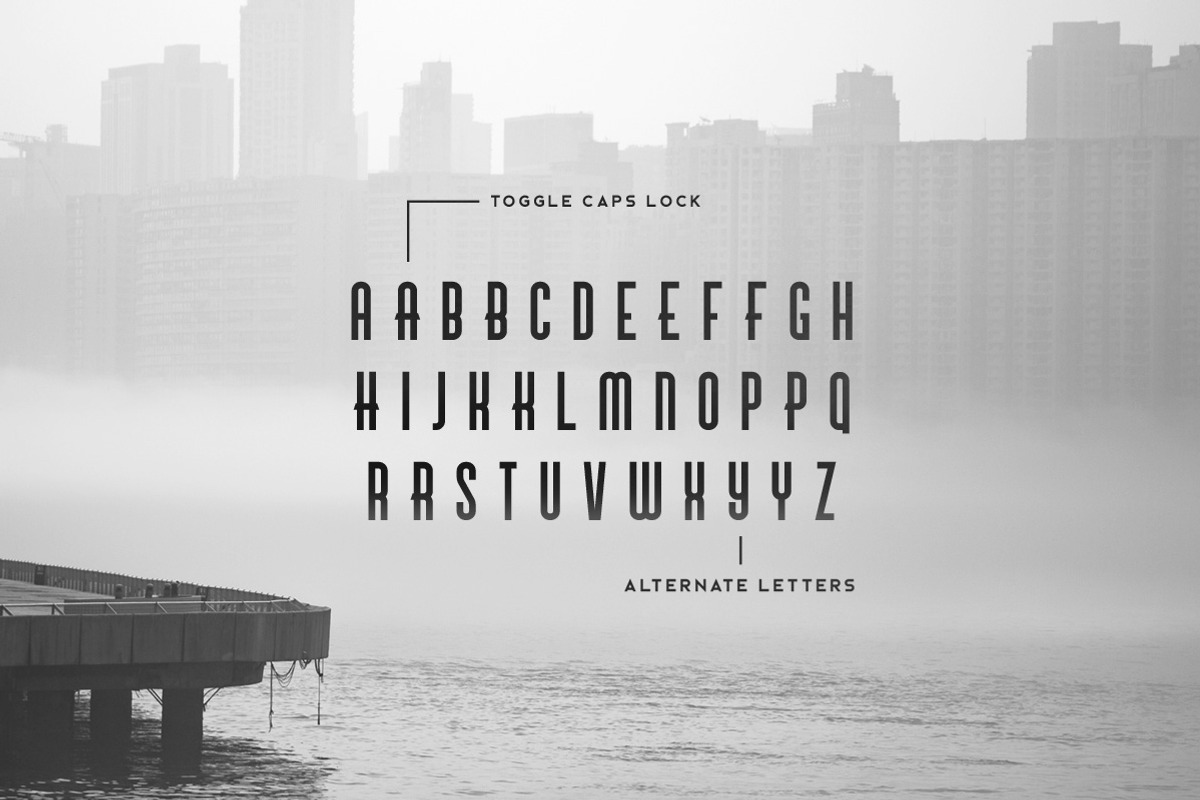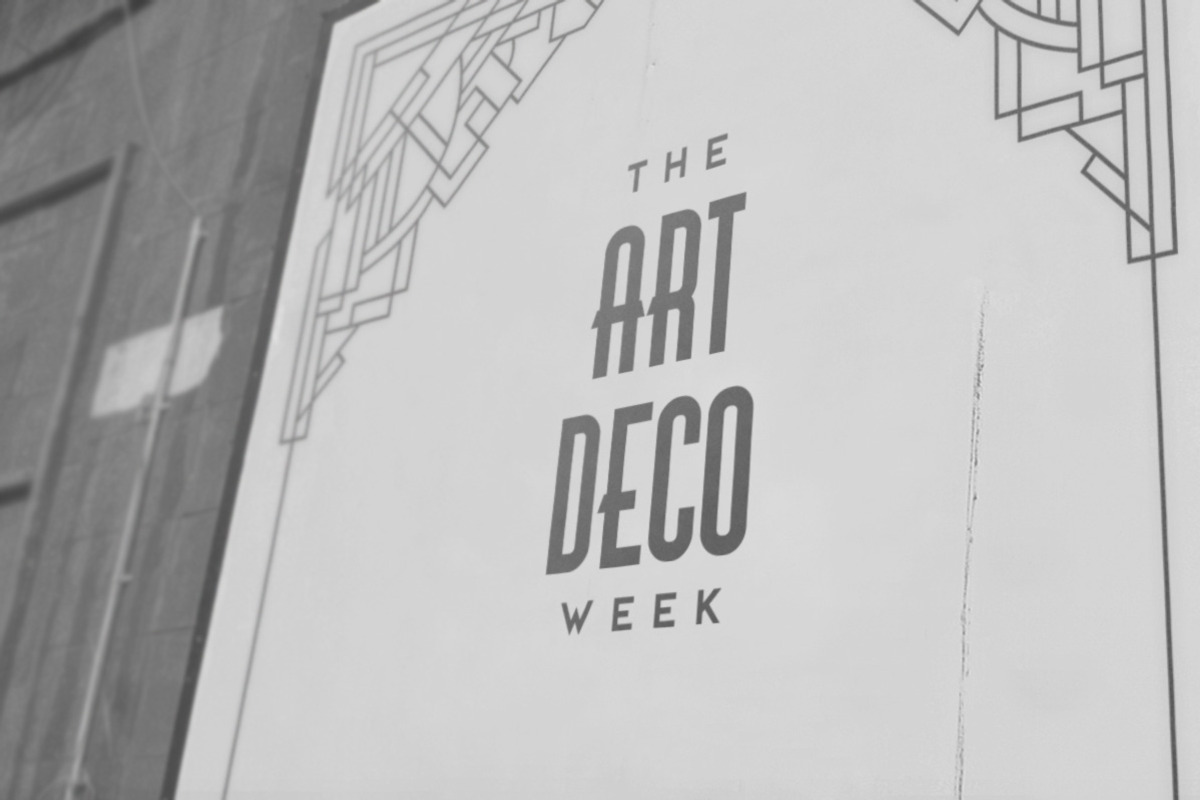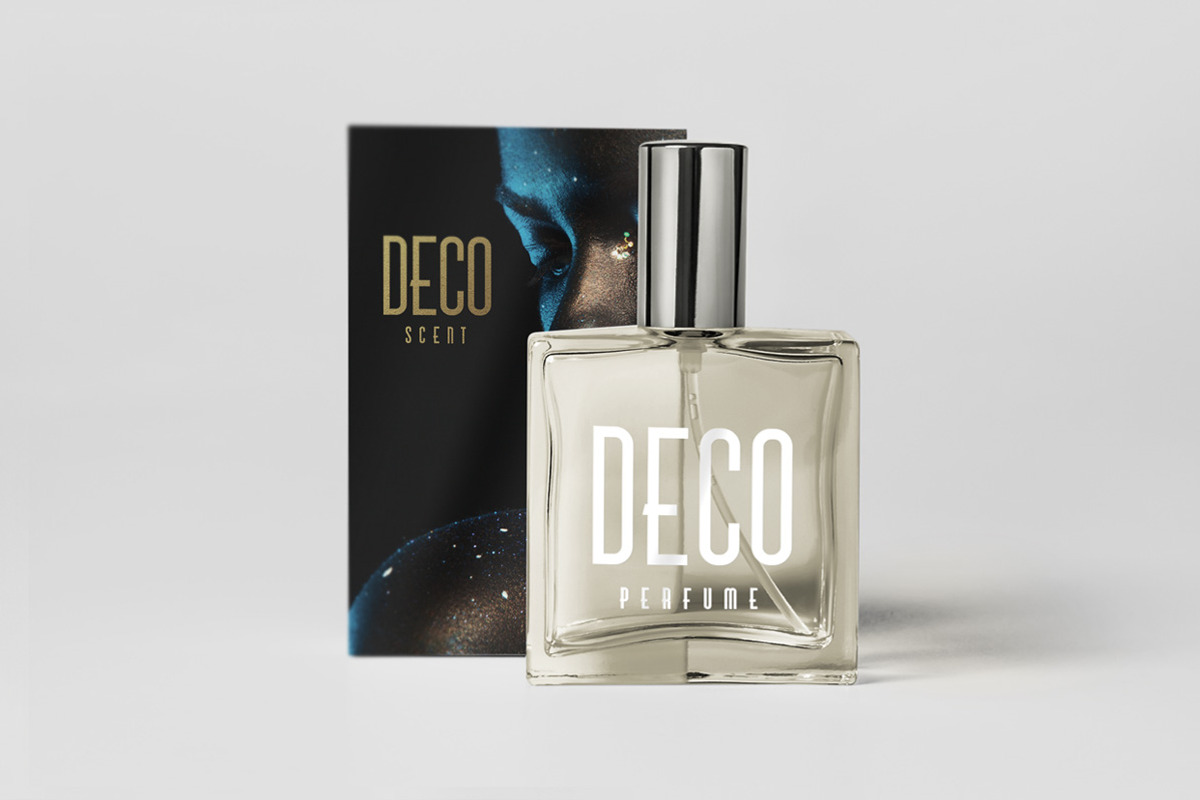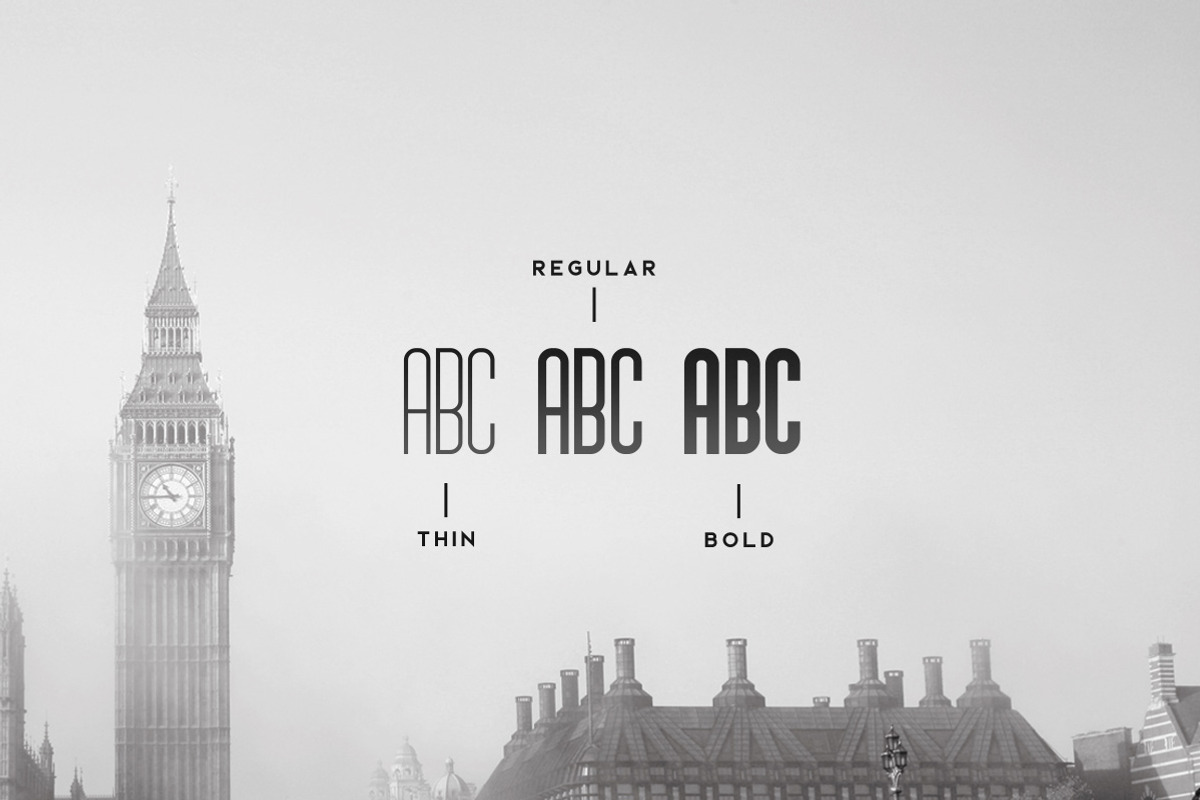
Brigmore Typeface
Brigmore Typeface by Tugcu Design Co. is a font selected for branding, posters, packaging, typography.
- It comes in three weights and includes multilingual uppercase letters, alternate letters, numbers and punctuation.
- You can toggle the alternate letters with Caps Lock.
Why Brigmore Typeface is worth a look
Brigmore Typeface by Tugcu Design Co. fits naturally into Branding, posters, packaging, typography.